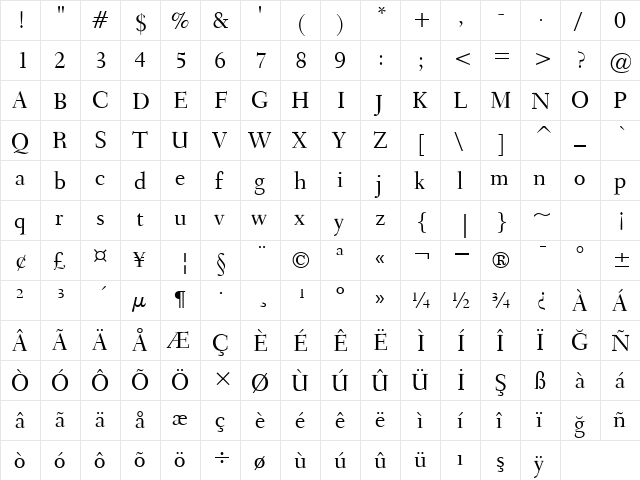
00430 Regular
Design Context for 00430 Typeface
00430 takes a measured approach to typography — its balanced proportions and neutral character make it a reliable workhorse for both digital and print work.